A Short History of Aeonik
Since its launch in 2018, CoType’s Aeonik has established itself as a staple in the design and branding sphere. A workhorse type family designed by Mark Bloom and Joe Leadbeater, characterised as a neo-grotesque with a geometric skeleton, it boasts a balance of mechanical precision and timeless aesthetics, evident in its strict terminals and rounded letters. And it has been recognised as such, not only capturing the attention of the design community but also demonstrating its versatility and technical excellence across high-profile projects for brands like Revolut, Eurosport, Alipay, and Virgin Hyperloop.
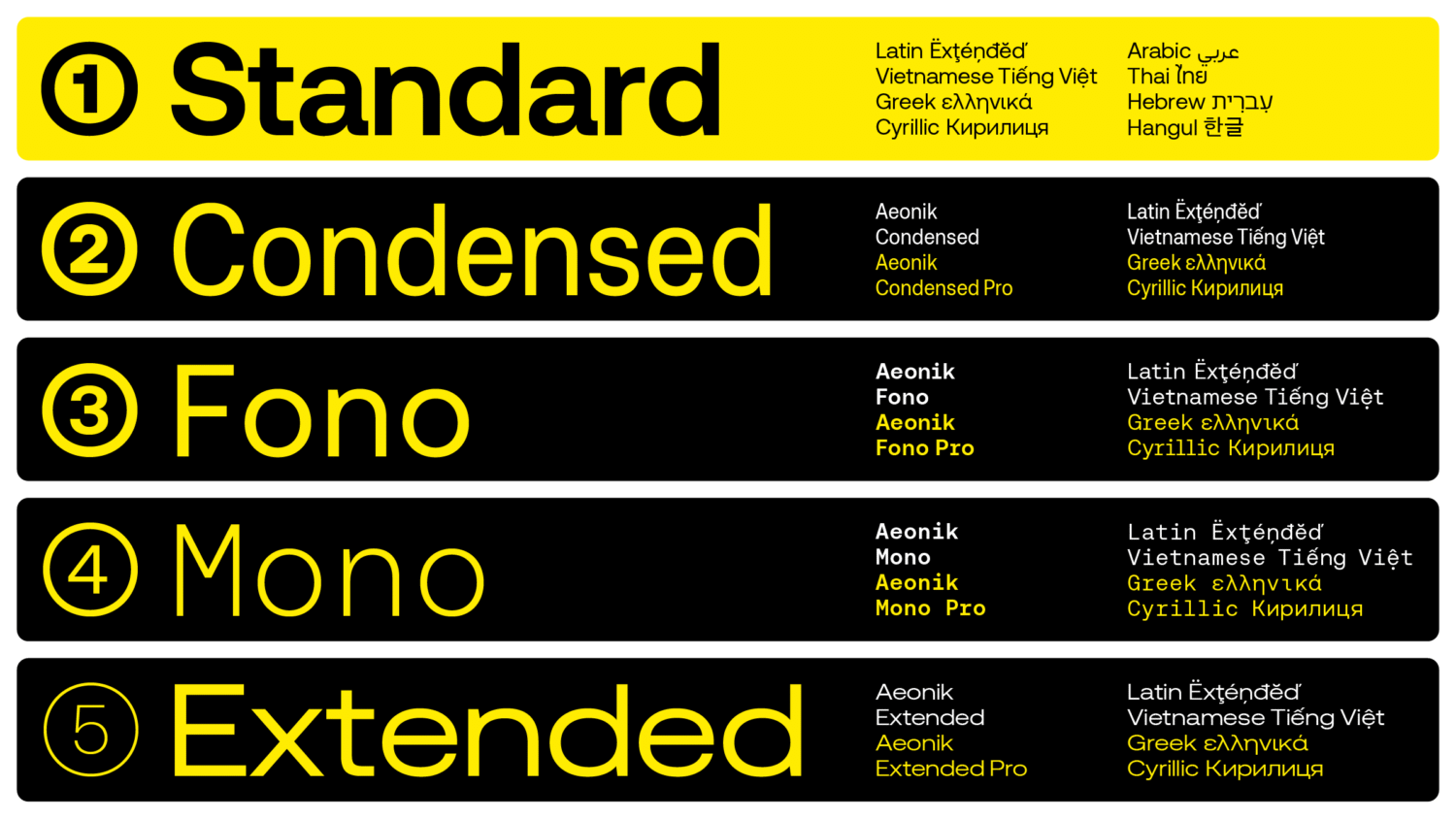
Initially offering only Latin Extended language support, CoType later released Aeonik Pro, which included support for Greek and Cyrillic languages. Aeonik’s crowd-pleaser status led Bloom and Type Designer Diana Ovezea to develop Condensed and Extended versions of the sans-serif. Likewise, on a global scale, the workhorse’s demand hasn’t slowed.
In 2025, CoType expanded Aeonik by adding support for Thai, Hebrew, Vietnamese, and Hangul, along with Pro language options for all variants, including Mono and Fono.
We caught up with Bloom and Ovezea, who provide an in-depth overview of the development process behind these new script releases.
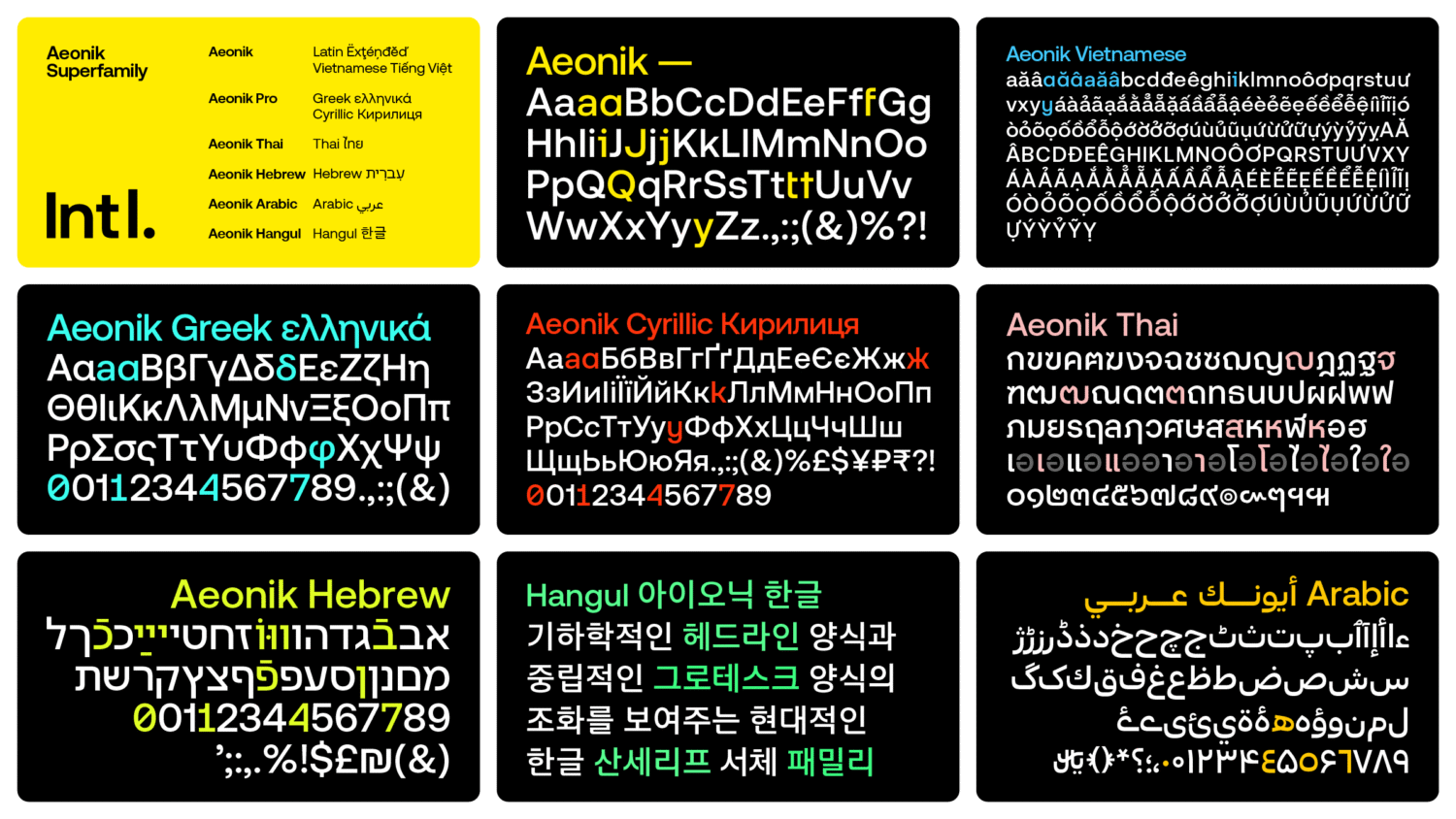
Development: Creating something undeniably ‘Aeonik‘
In 2024, with strong momentum behind them, Ovezea took the reins to steer Aeonik’s evolution further than ever. Under her guidance, independent designers were commissioned for each new script: Black Foundry tackled Hangul, Bahman Eslami embraced Arabic, Cadson Demak ventured into Thai, and Fontef Foundry explored Hebrew. Each designer was carefully briefed to capture the unmistakable essence of Aeonik while still respecting the “structure, rhythm, and traditions” of their respective languages.
“With the Latin, Cyrillic, and Greek versions in place,” Ovezea adds, “Aeonik’s core design features were clear enough for each designer to interpret them in a way that felt cohesive.” Before the work began, they exchanged ideas and drafts, often sharing PDFs to align their efforts, and soon, the distinctive essence of Aeonik began to emerge across various scripts.
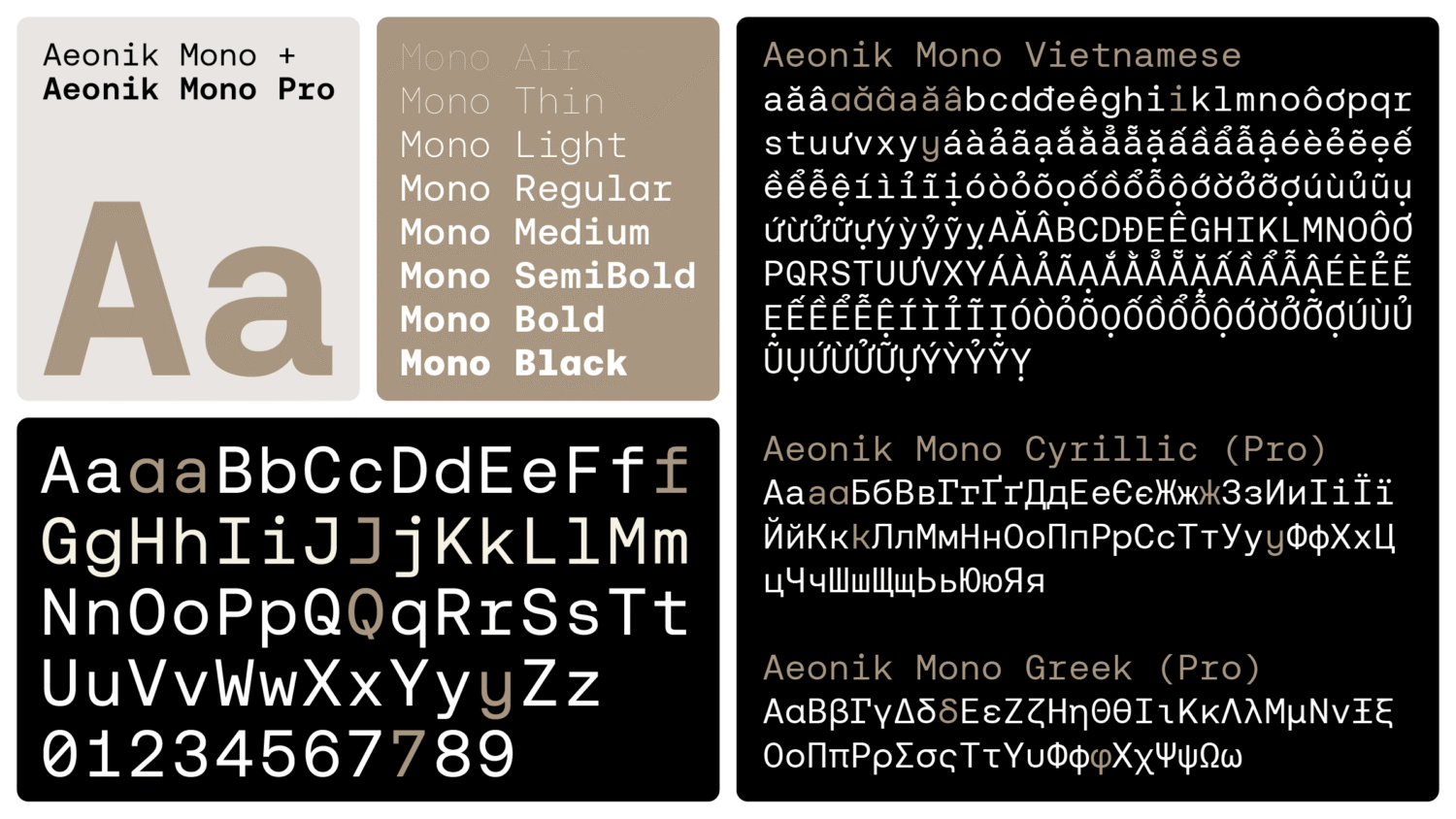
The project initially focused on Arabic, Thai, and Hebrew, as these languages could be developed in roughly the same timeframe. Hangul, meanwhile, was more complex and required a longer development cycle.
Project Highlights: Super Scripts and Dancing Glyphs
As versions of Aeonik took shape, what surprised Diana the most was the potential for clean, low-contrast Arabic typefaces that remain faithful to the script. “Historically, Arabic type has been shaped by calligraphy and broad-edge tools,” she explains. “For a long time, many new Arabic fonts were either overly Latinised or limited by the constraints of early font technology.” The tools have since advanced, allowing for a thoughtful approach that was once limited by the constraints of older technology. “I’m proud Aeonik can be part of that shift.”
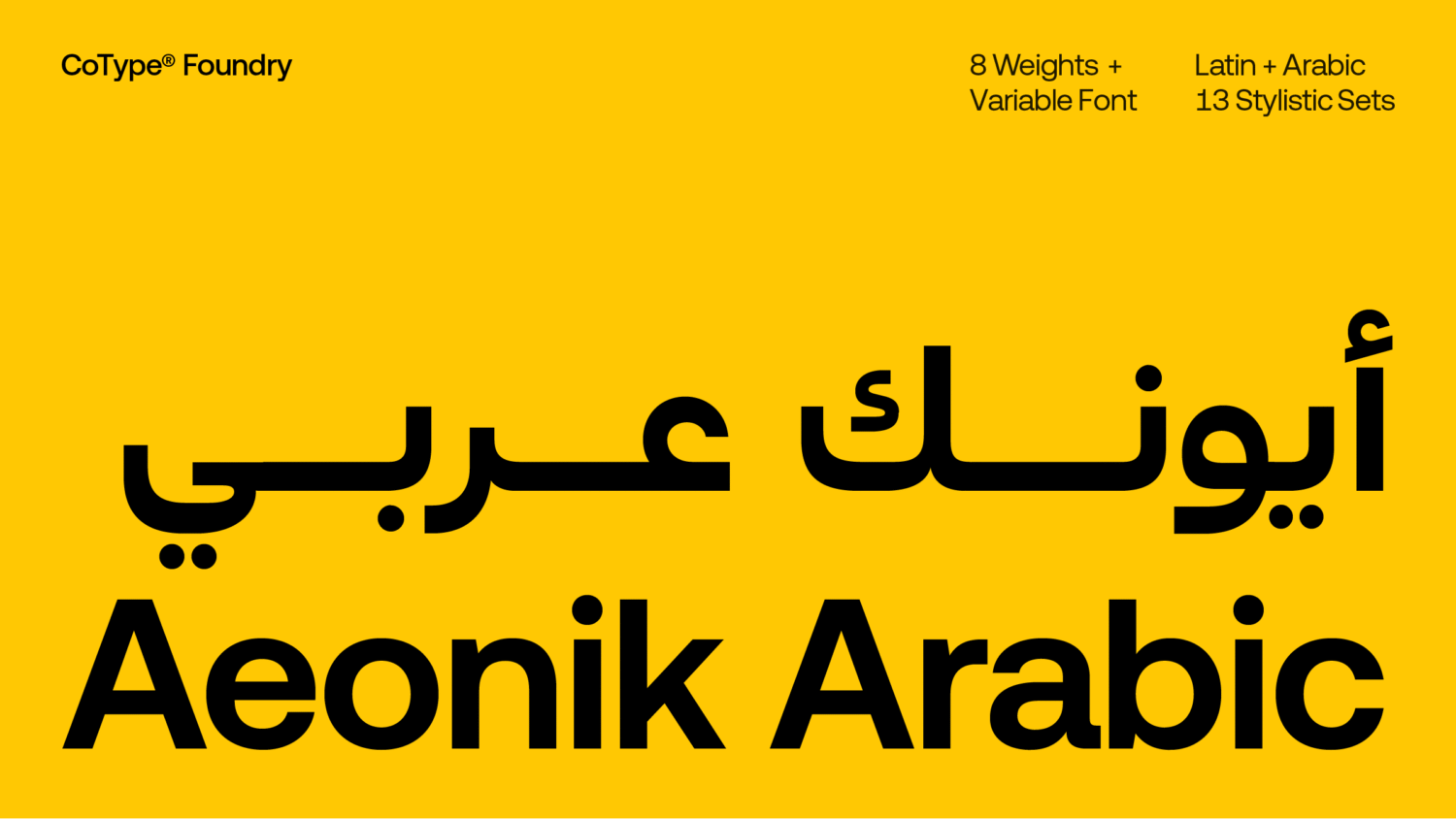
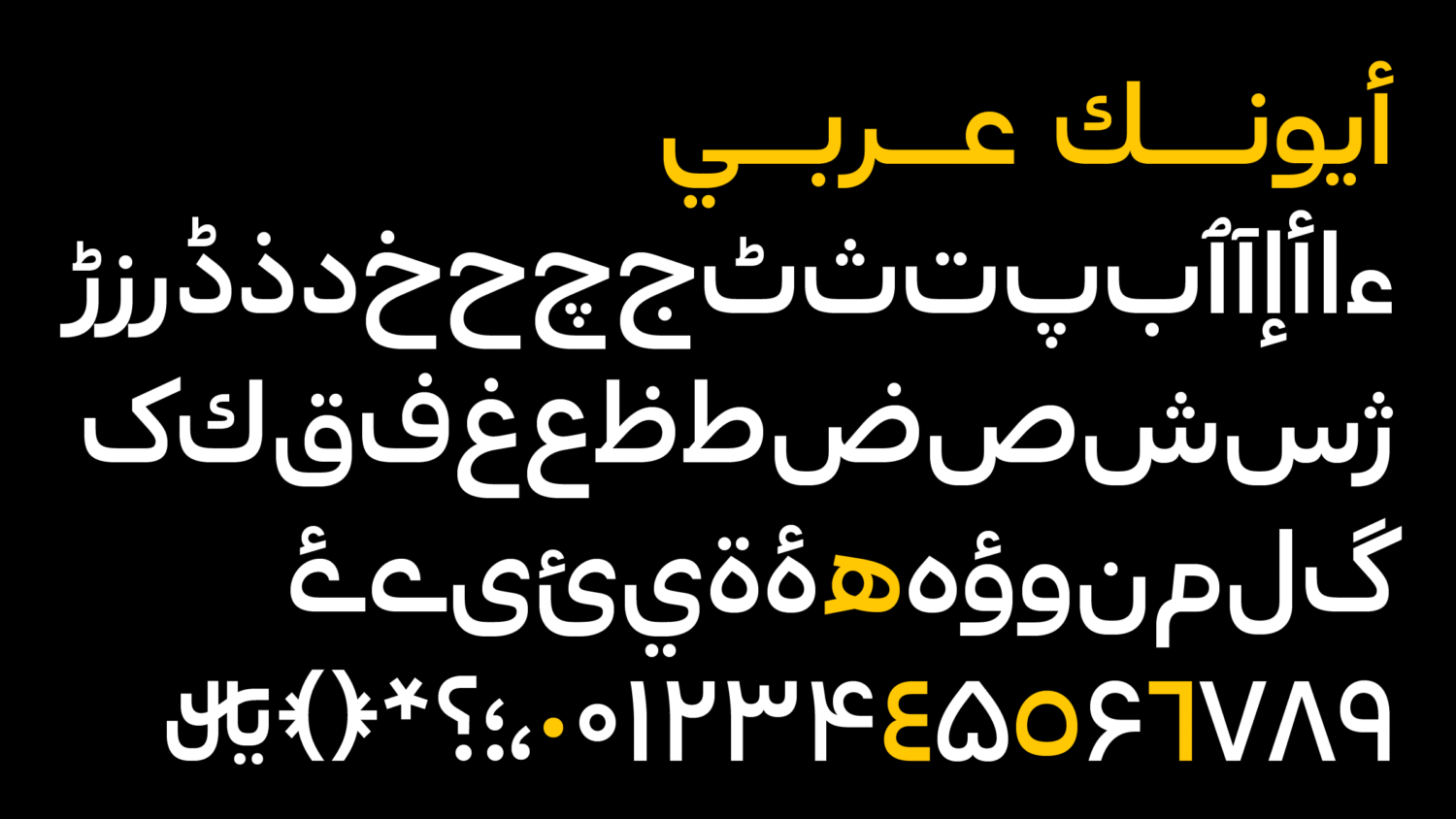
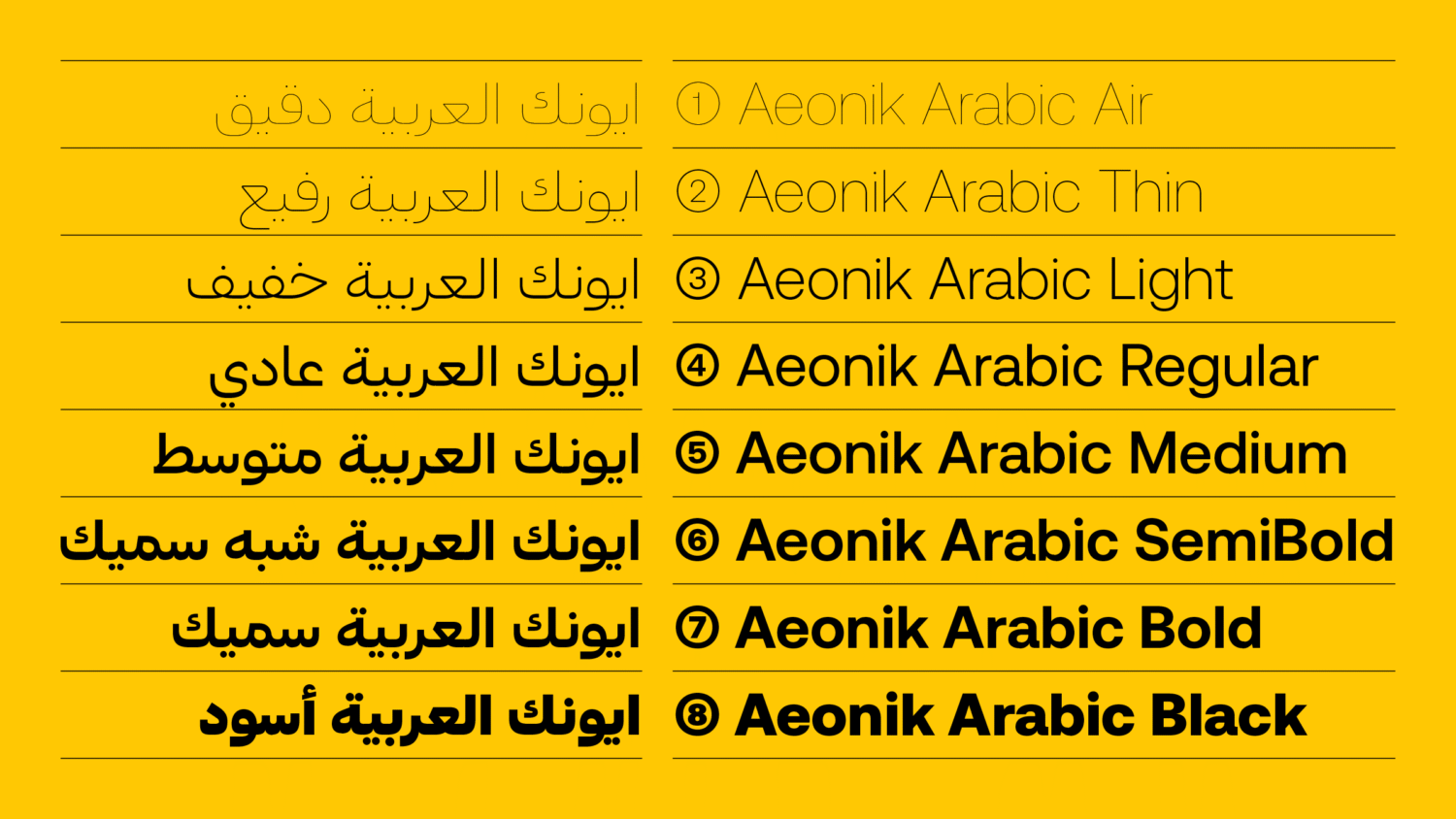
“One principle I always return to is that Arabic type should preserve the illusion of continuous movement. Because the script connects contextually, each letter must feel like part of a ribbon flowing through the line. It feels unusual to apply that idea to a geometric grotesque typeface, yet Bahman Eslami has managed to design Aeonik Arabic in a way that respects both what makes Aeonik appealing to graphic designers in the Latin world and what makes Arabic structurally and culturally unique.”
When Black Foundry presented the Hangul version, Mark was impressed beyond measure. “The structure of the script is completely different from Latin, yet the Hangul version still feels unmistakably Aeonik,” he remarked, admiring the balance of visual complexity with the clean, modular feel that defines the family. “It’s a great example of how a typeface can adapt across writing systems without losing its identity.”
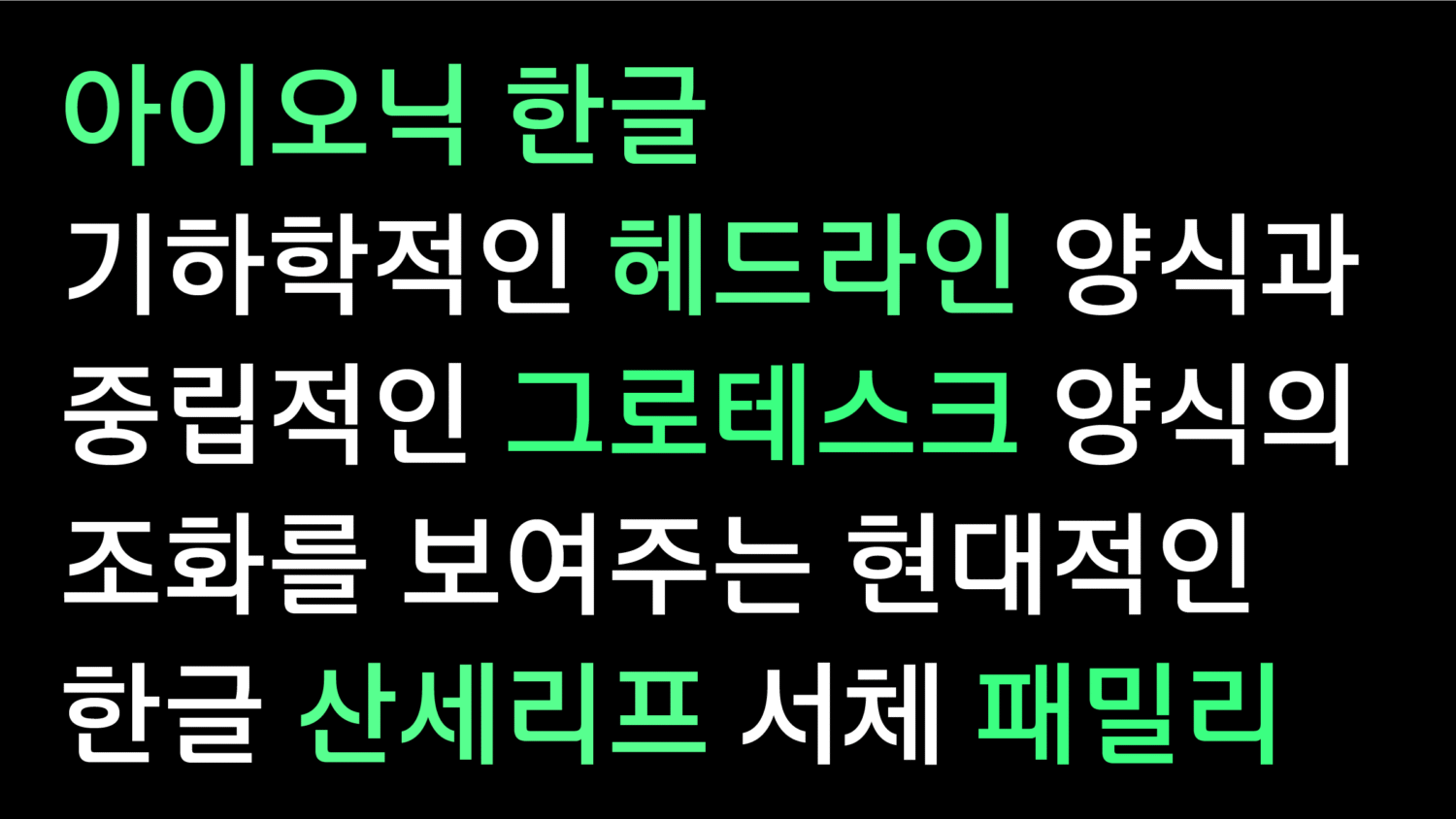
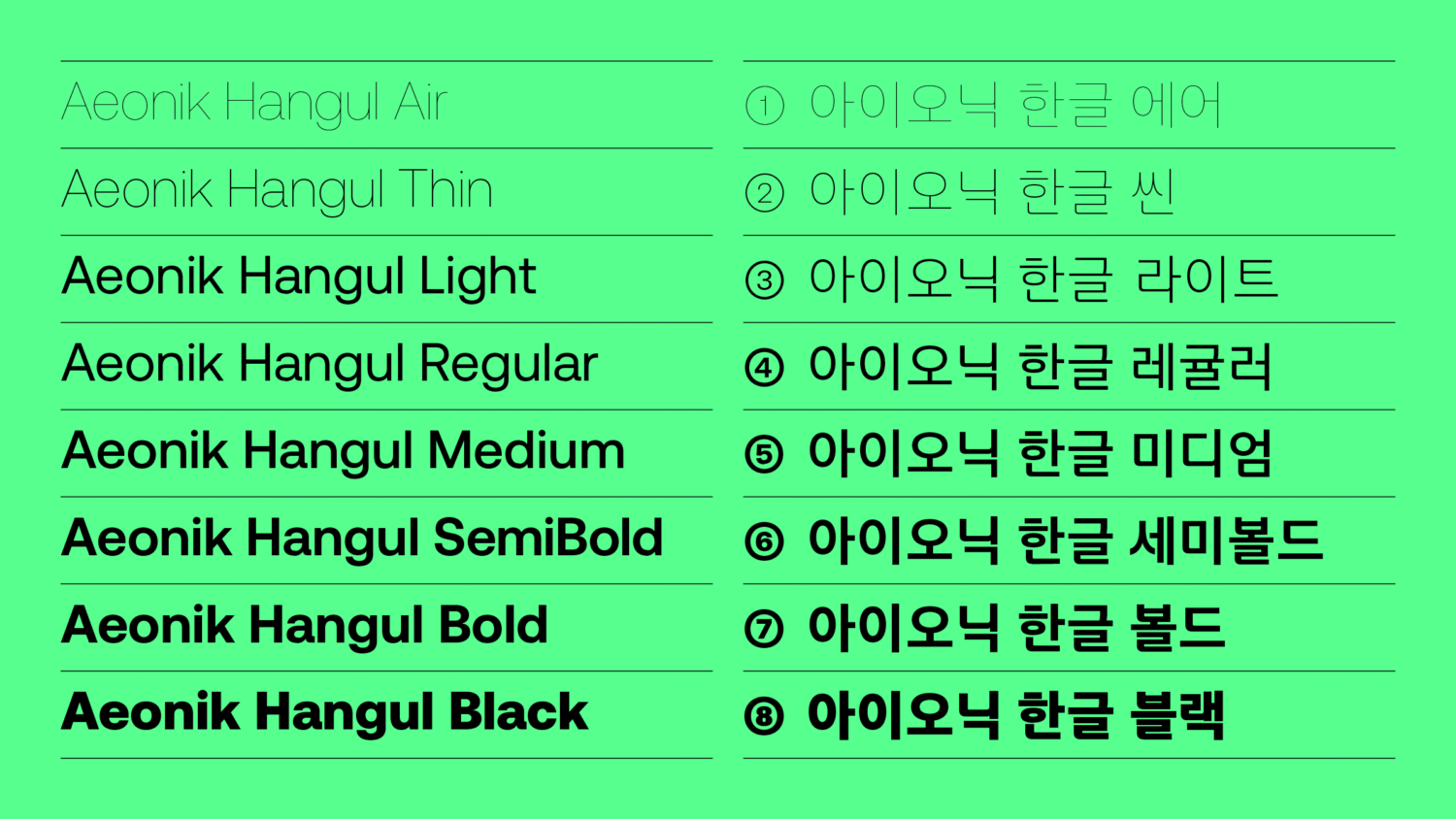
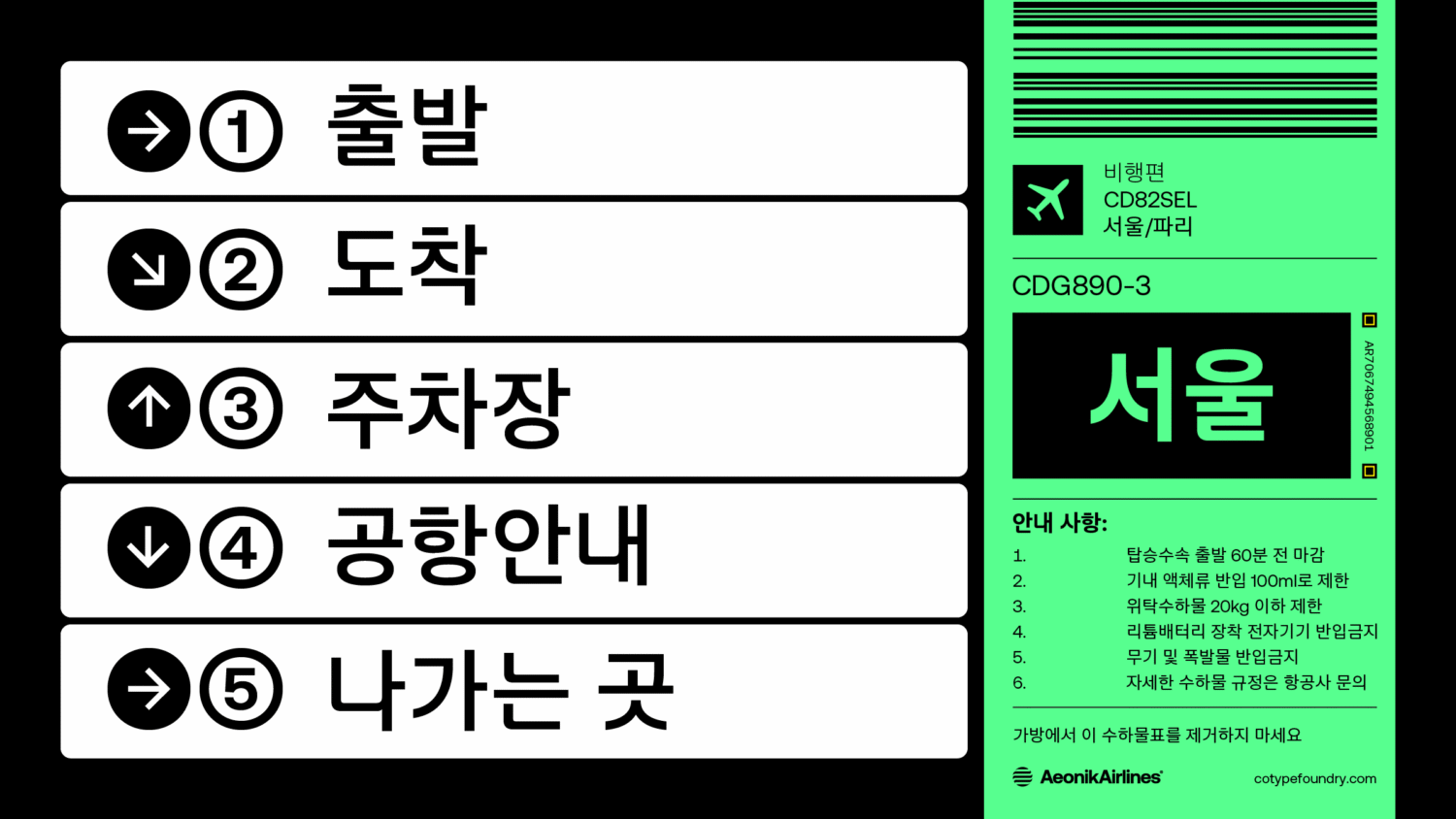
Meanwhile, Diana marvelled at the ‘Air’ version of the Thai glyphs, expressing joy over the playful forms — “especially characters like the Thai number ‘5,’ which almost feels like it’s dancing” – that breathed life and energy into the script. “Cadson Demak managed to bring so much personality into those lighter weights while still staying true to Aeonik’s tone. Seeing those shapes actually made me wonder what Aeonik might look like as a handwritten script.”
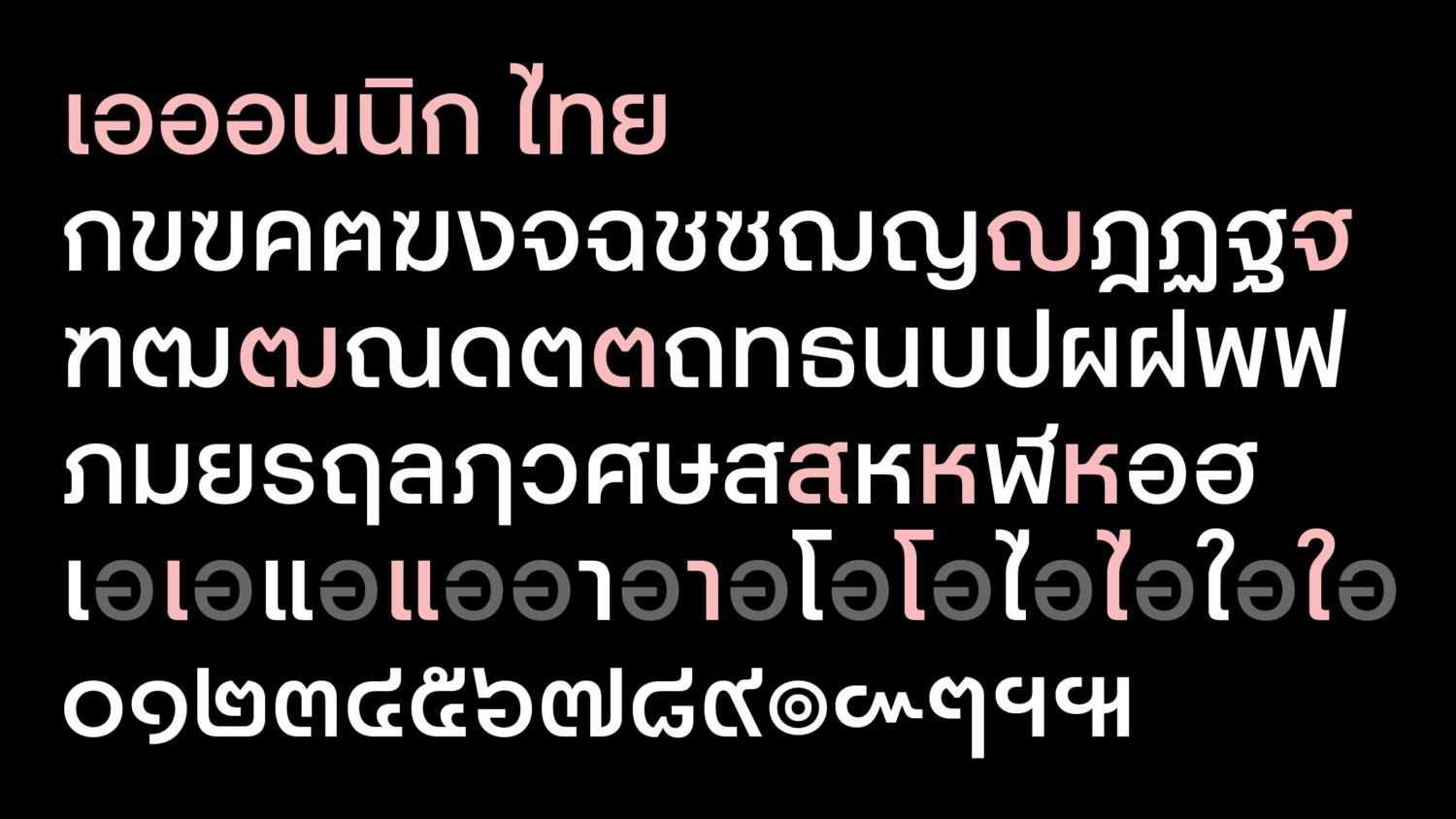
Lessons and Learning Curves
“Expanding Aeonik into multiple scripts was a rewarding process,” Ovezea reflects, grateful for the chance to lead it. While the design phase was carried out smoothly – thanks to both Aeonik’s clear personality and the teams’ respective expertise – there were definitely a few things she hadn’t fully anticipated at the start. “As we moved into engineering and started making decisions about how to deliver the fonts to customers,” she recalls, “things naturally became a bit more complex.”
For anyone thinking about a multi-script expansion, Ovezea shares a few nuggets of advice that she learned along the way: